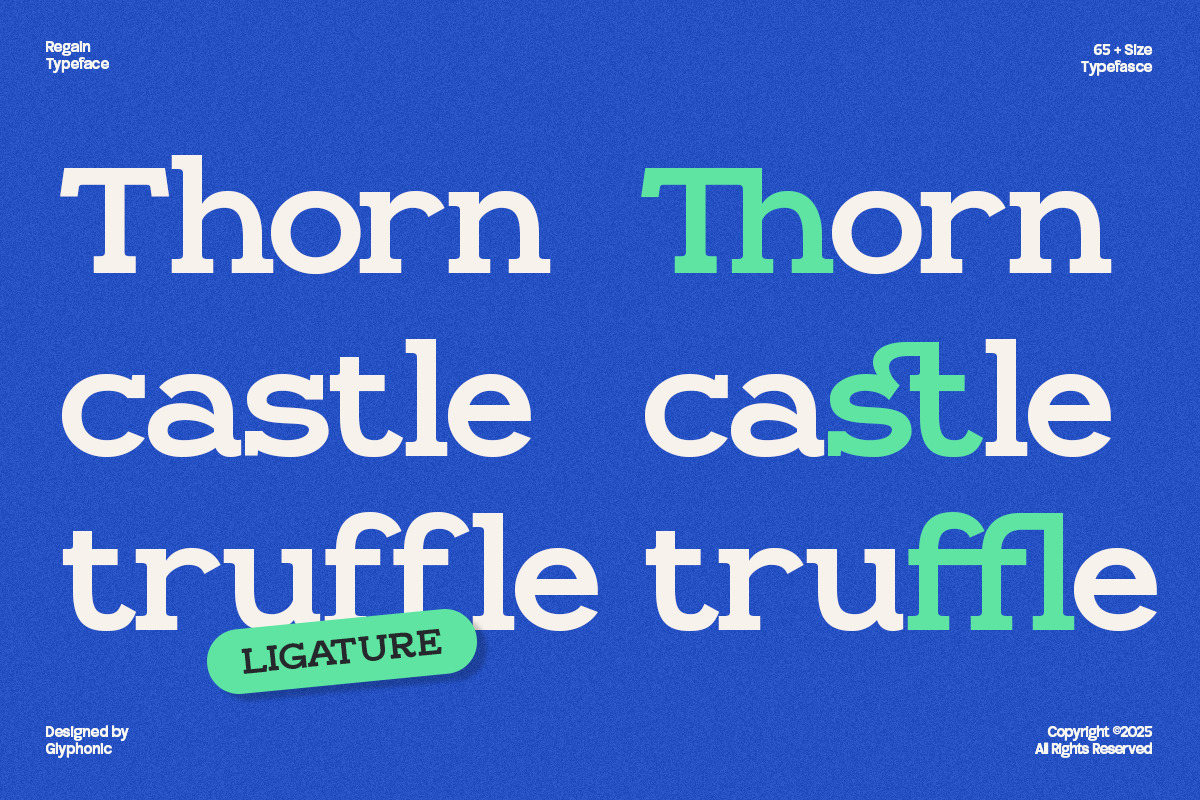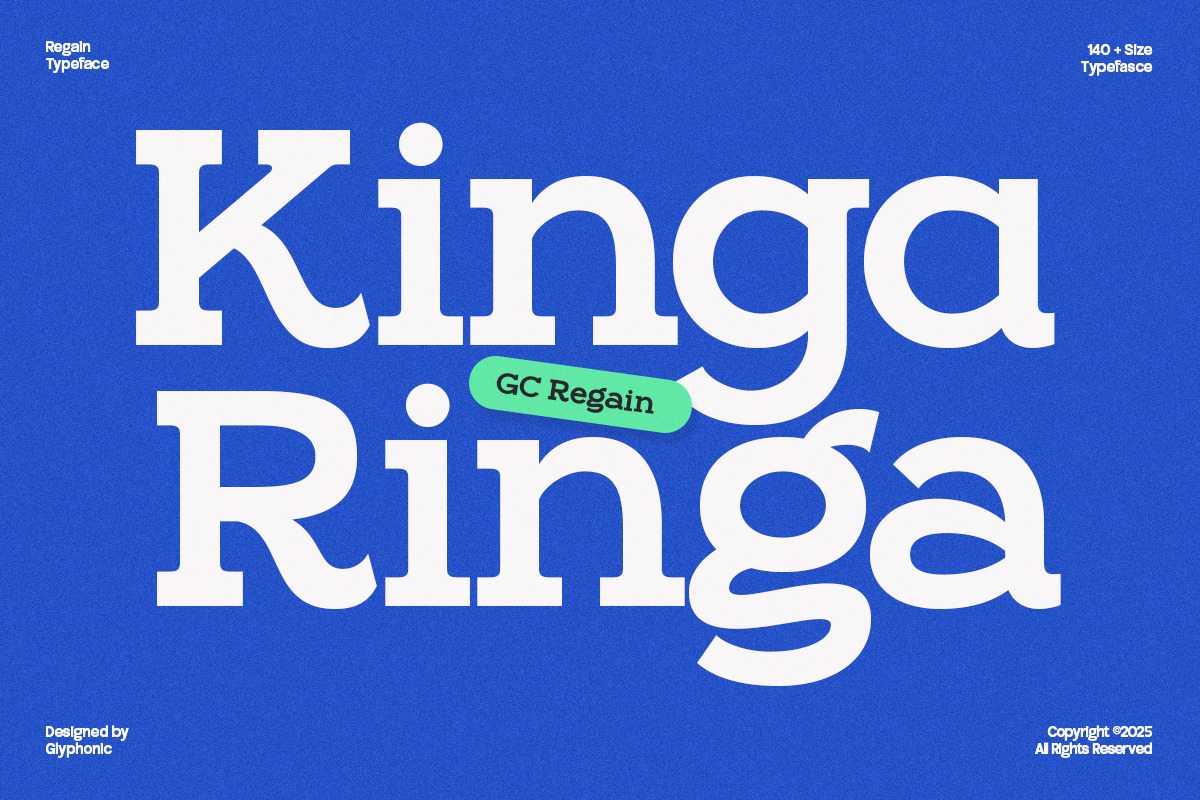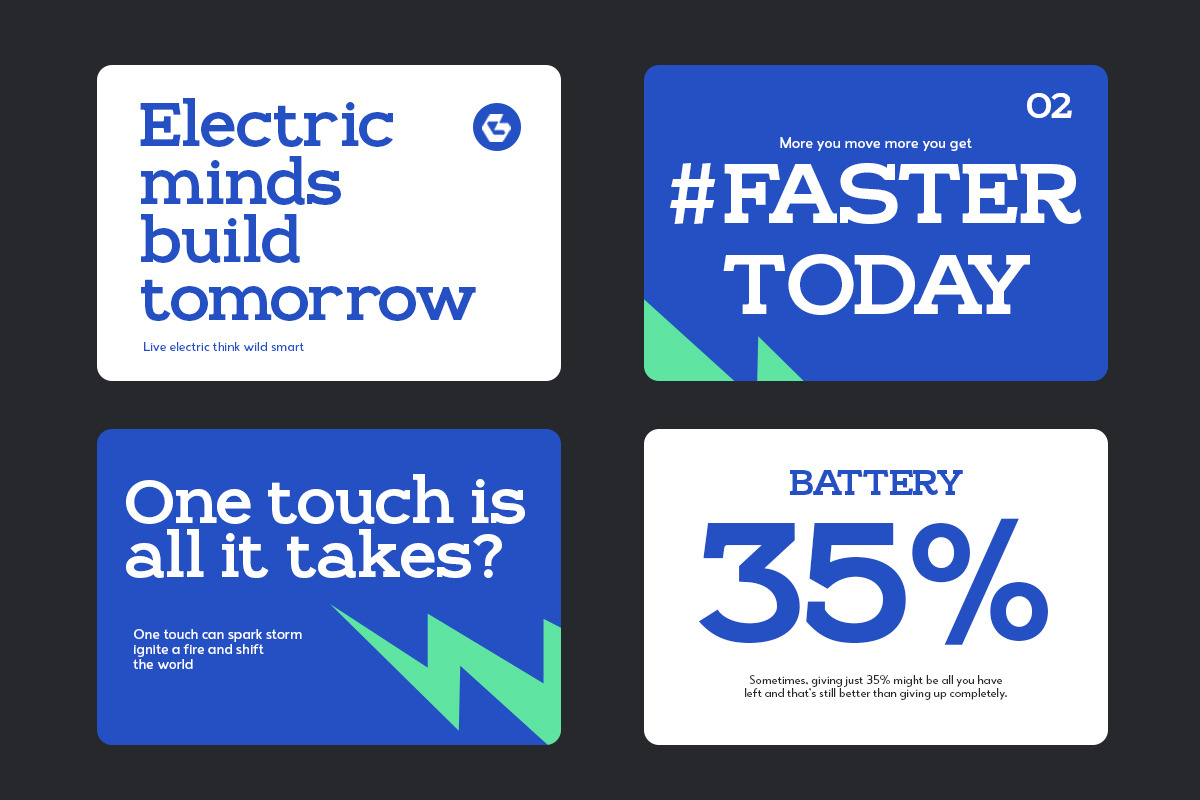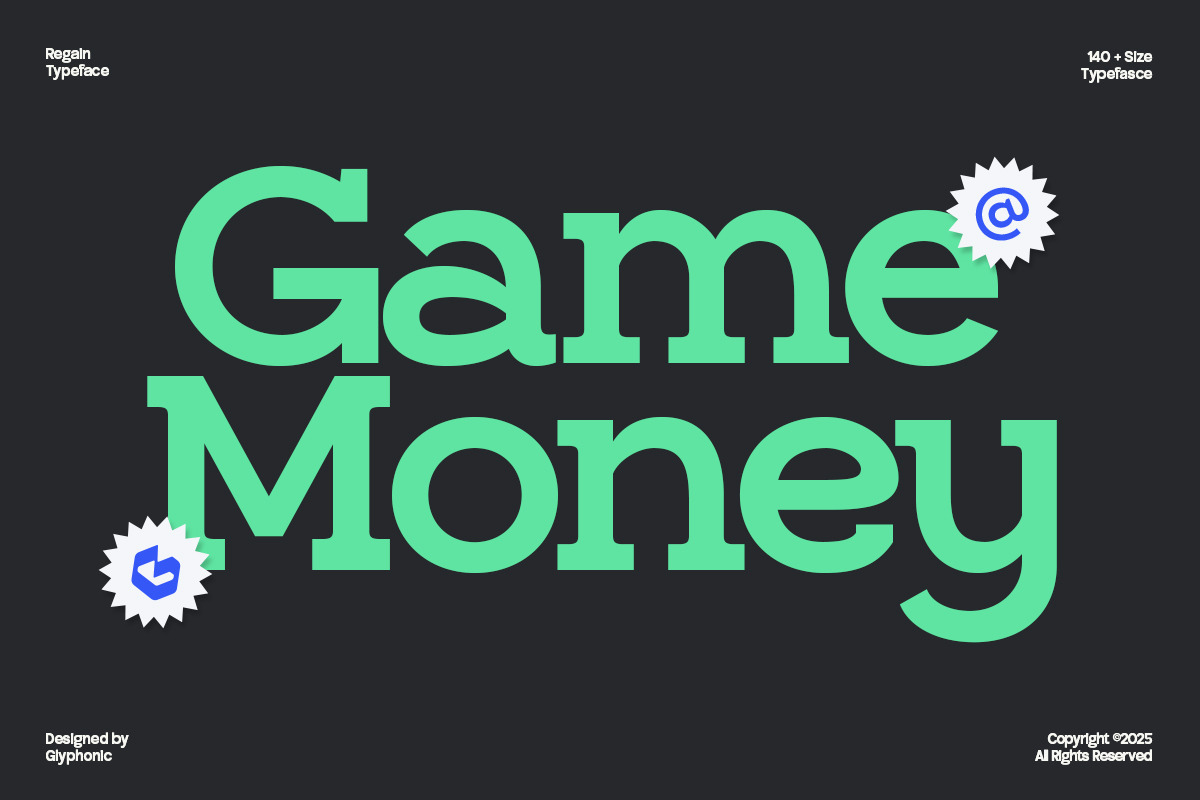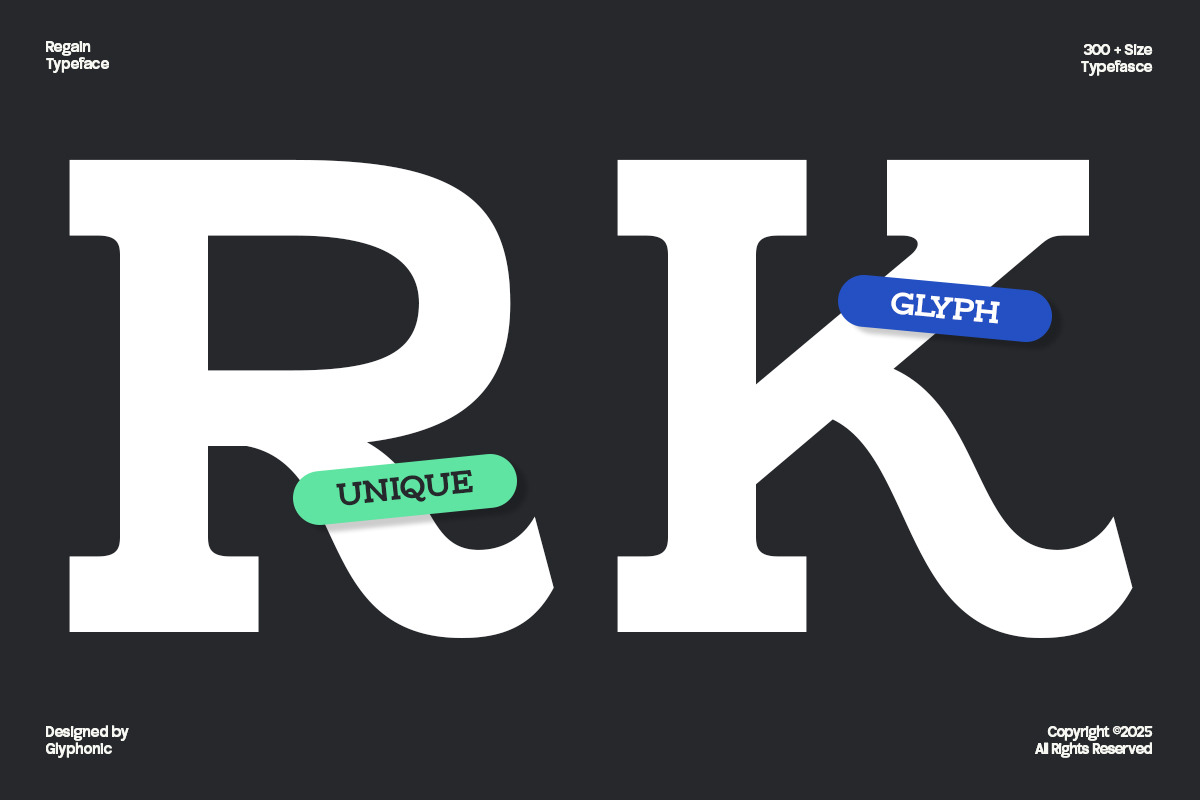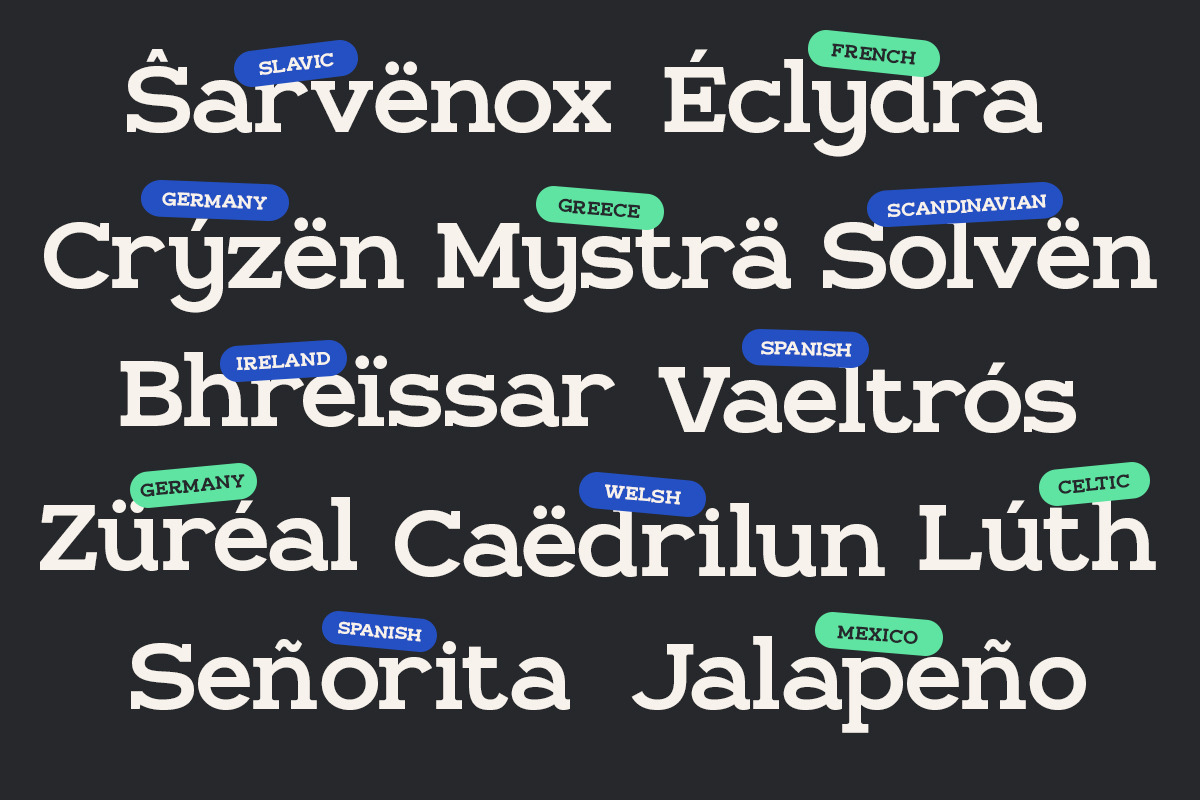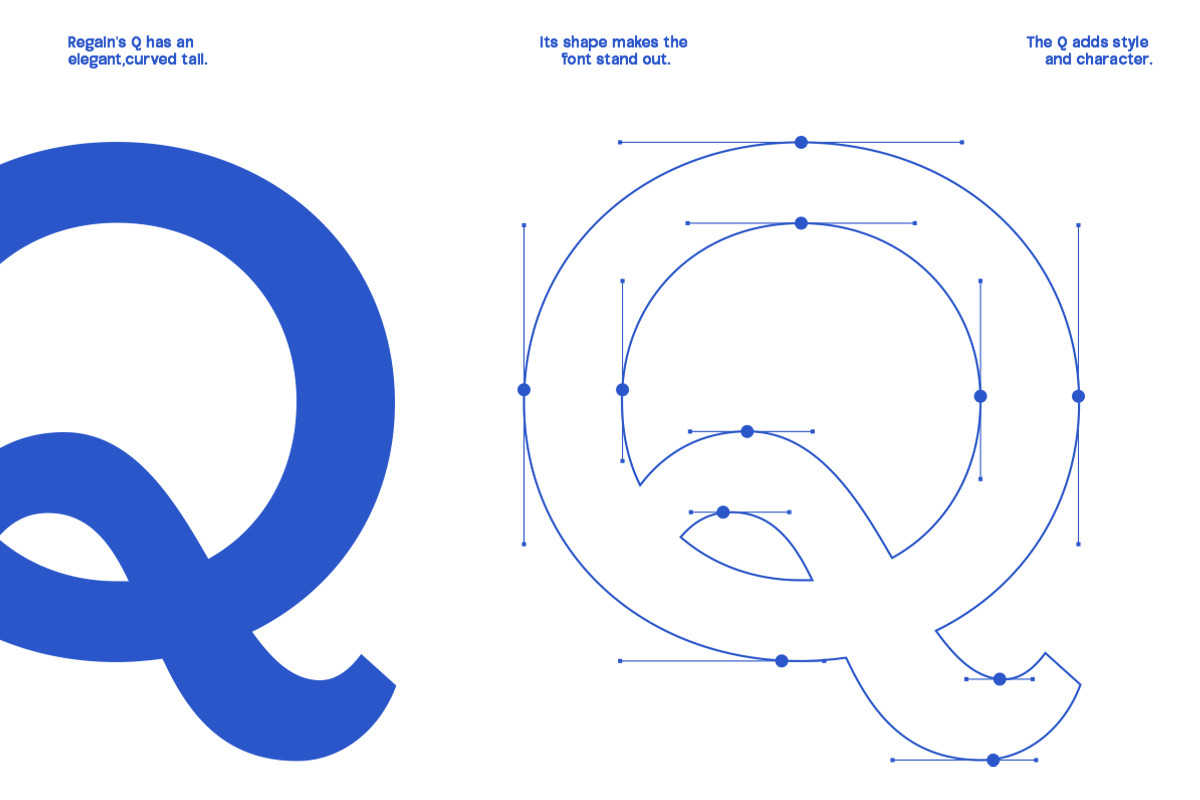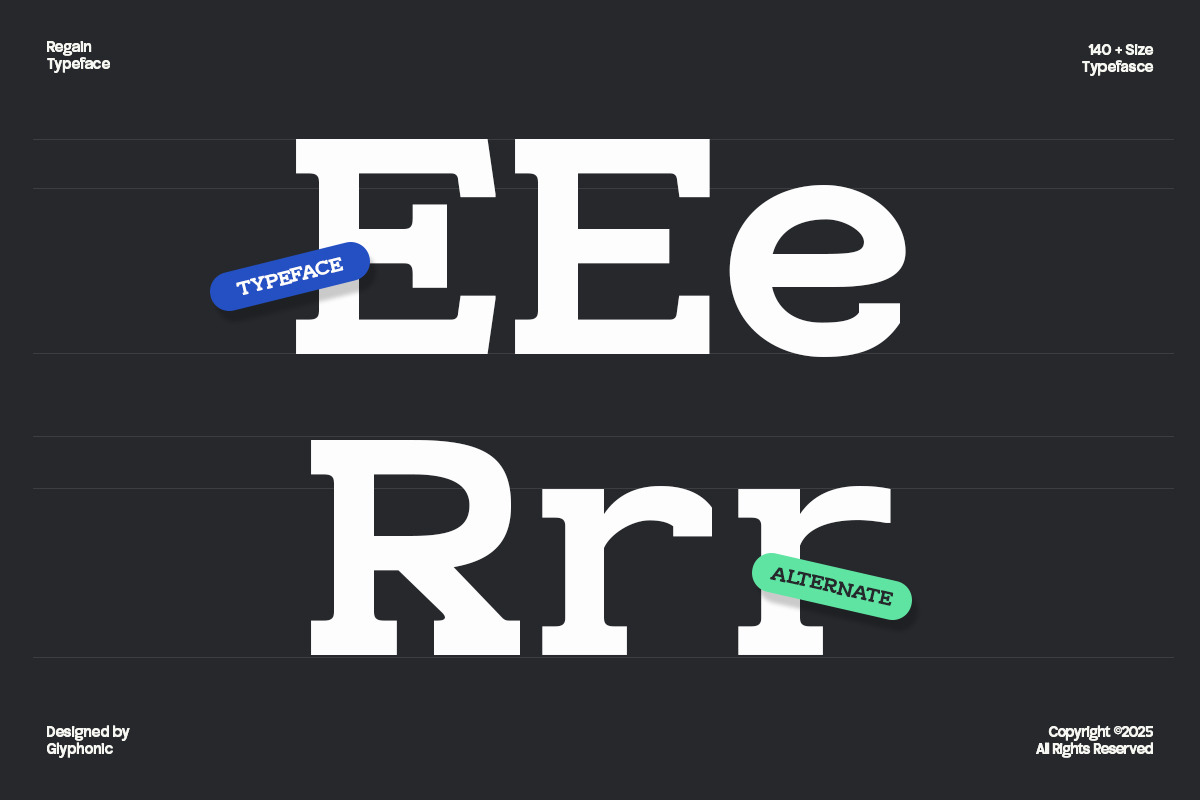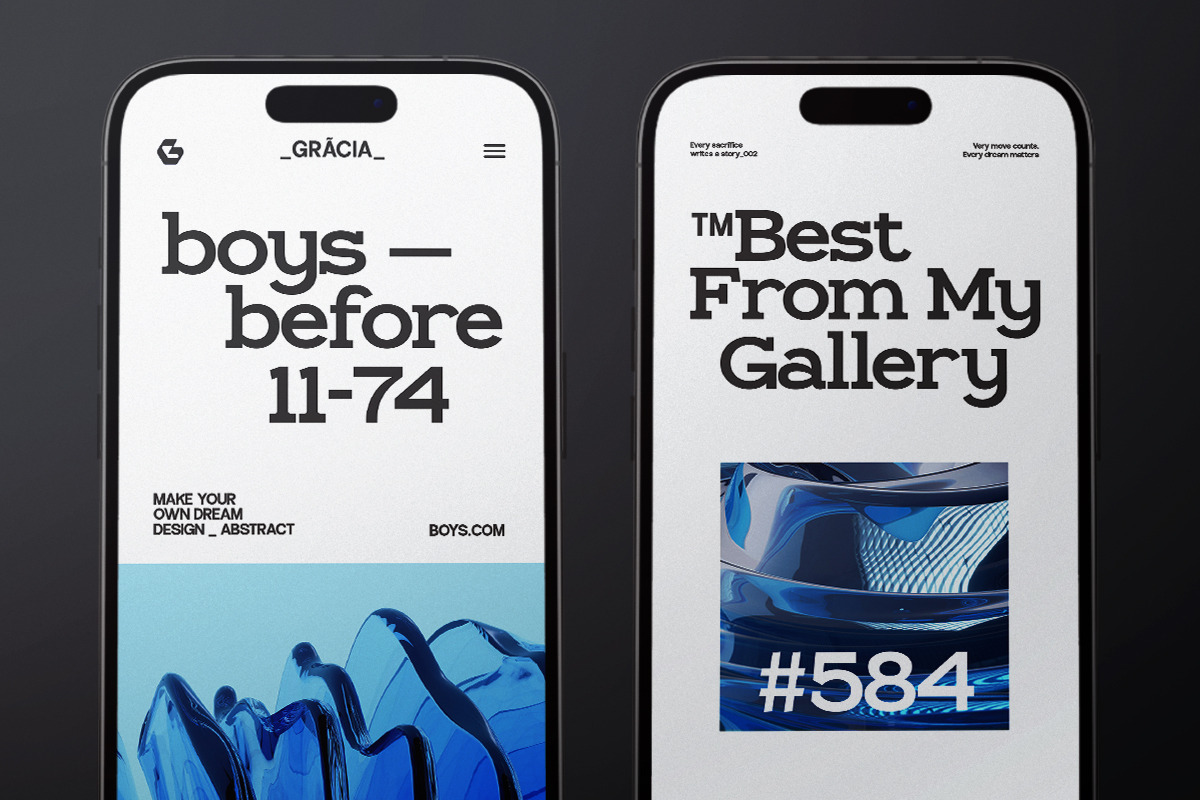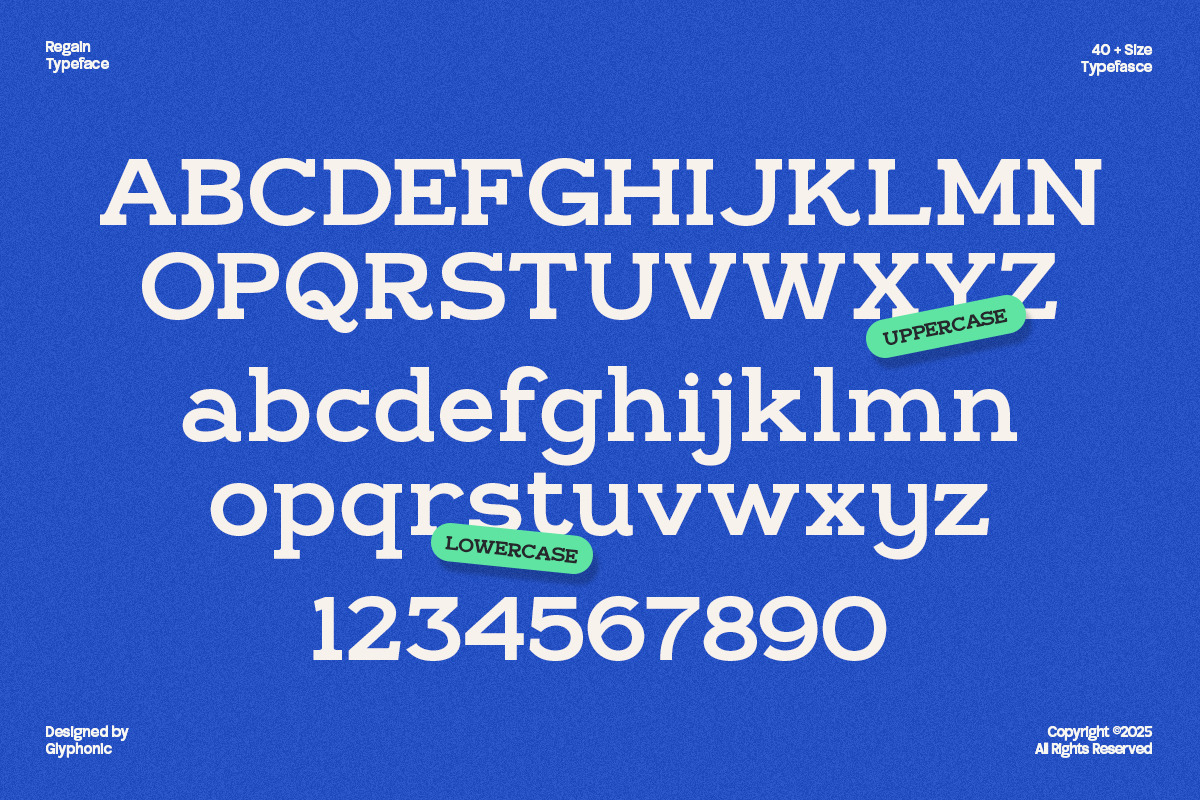
GC Regain - Display Bold Slab Serif
GC Regain is a bold display slab serif font that blends vintage strength with modern confidence. Perfectly suited for headlines, branding, logos, packaging, and editorial layouts, it’s crafted to leave a lasting impression. With its thick slab serifs, solid structure, and impactful letterforms, GC Regain brings personality and a commanding presence to any design. Whether you're designing for fashion, lifestyle, or bold artistic visuals, this typeface offers both versatility and unapologetic style.
- Ligatures & Stylistic Alternates
Make your design bold, refined, and timeless with GC Regain.